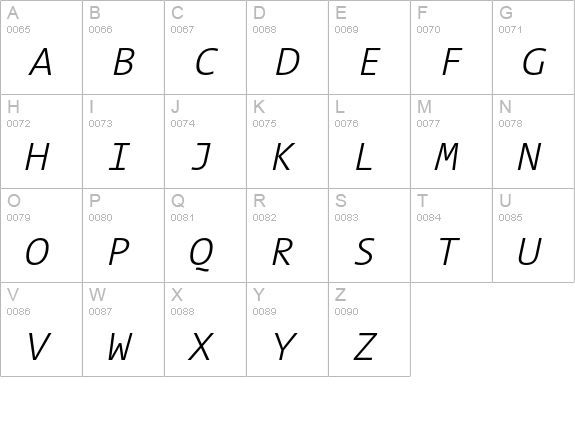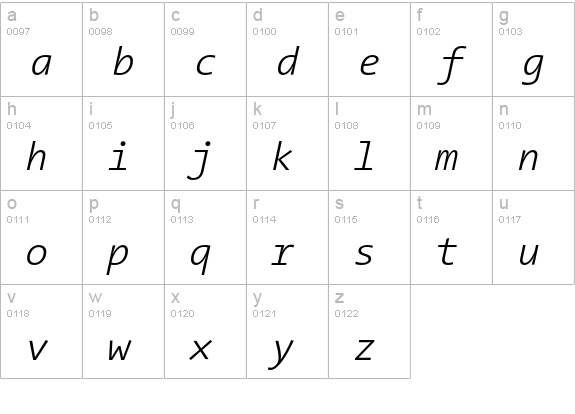
TheSansMono Light Italic is a refined, elegant, italic variant in the TheSansMono typeface family \xE2\x80\x94 well suited to elegant body text, refined sub-headings, and luxury branding.
TheSansMono Light Italic font is a sleek and modern typeface that exudes elegance and sophistication. Its light weight lends a delicate and airy feel to any design, while the italic style adds a touch of dynamic movement. This font is perfect for adding a touch of sophistication to any project, whether it be a website, print material, or branding. With its clean and legible letterforms, TheSansMono Light Italic font is highly versatile and can be used for a wide range of applications. Its clarity and simplicity make it ideal for both body text and display purposes, ensuring that your message is conveyed with clarity and precision. But what sets TheSansMono Light Italic font apart is not just its aesthetics, but the fact that it is freely available to download at FontsMarket.com. This means that you can easily access and use this font without any cost, making it an excellent choice for designers on a budget or anyone looking for a high-quality typeface without breaking the bank. Whether you're a professional designer or a casual user, TheSansMono Light Italic font offers a world of possibilities. Its versatility, elegance, and the fact that it is free to download make it a must-have font for any design project. So don't hesitate, head over to FontsMarket.com and grab your copy of TheSansMono Light Italic font today!